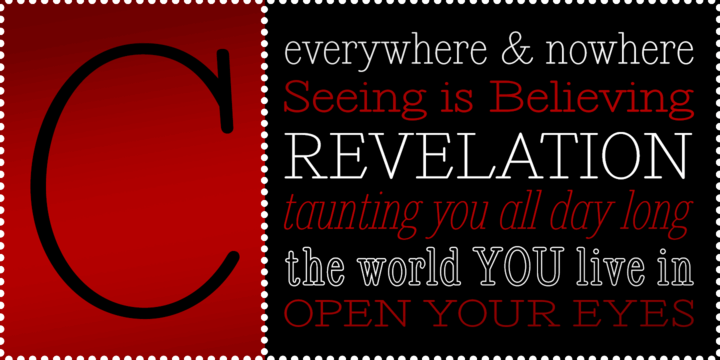
Revelation BTN
About Revelation BTN
Revelation is a text typestyle that offers a diversity of usage and settings through its wide array of variants in weight and width, from condensed to expanded, regular to bold, and even outline versions.